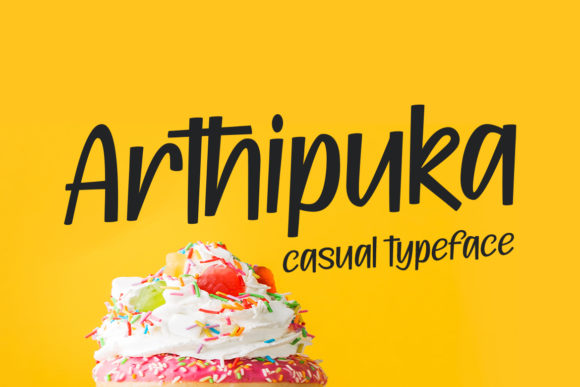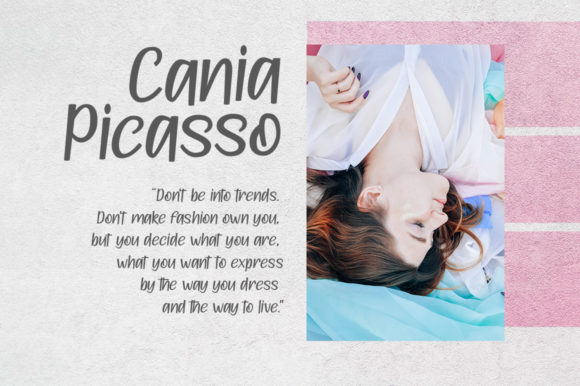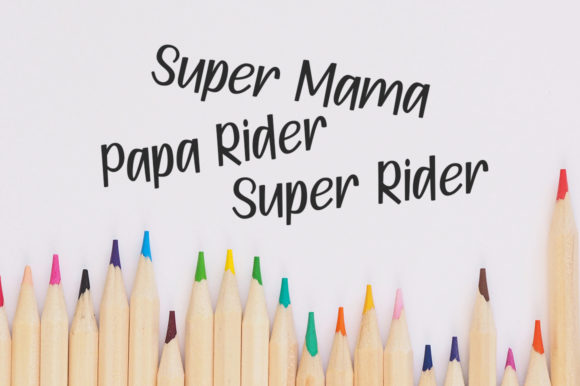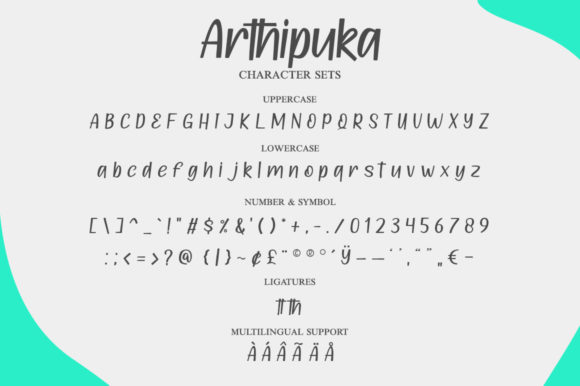
Arthipuka Font
About Arthipuka Font
Arthipuka embodies fun, quirkiness and authenticity. This enchanting handwritten font will turn any creative idea into a true standout. Get creative with its childlike playfulness, and use it to brighten up any kids and school project!